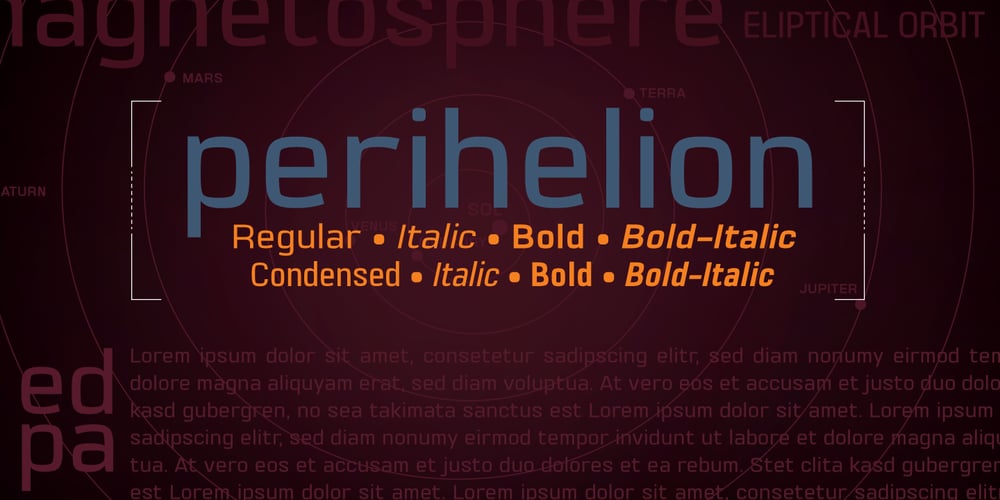
Perihelion BB
Perihelion BB font
Perihelion BB Font Family was designed by Nate Piekos and published by Blambot. Perihelion BB contains 13 styles and family package options. Perihelion BB is a sans-serif body copy font with a slight science-fiction influence. It includes Regular, Bold, Italic, Bold-Italic, Condensed, Condensed Italic, Condensed Bold, and Condensed Bold-Italic. Perihelion BB also has a hefty compliment of European characters.